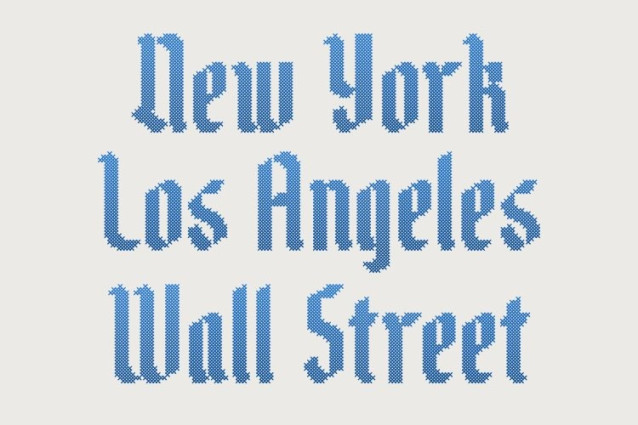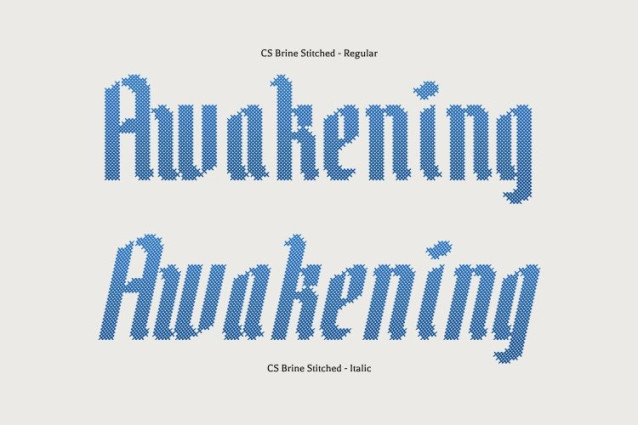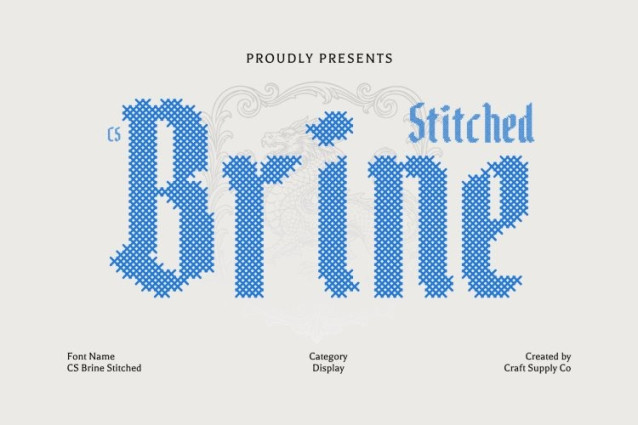
CS Brine Stitched Font
CS Brine Stitched Font is a striking blackletter display font that captures the richness and artistry of traditional gothic typography. Its bold, angular letterforms are filled with intricate details that echo the elegance of medieval manuscripts and classic calligraphy. Enhanced with a stitched texture inspired by thread sewn or embroidered on fabric, this version adds a distinctive handcrafted dimension that deepens the historical and decorative character of the font.
Classic Drama with Textured Stitch Detail
The dramatic presence of this font comes from its sharp strokes, bold structure, and ornate forms. The stitched overlay introduces subtle cross-thread patterns that create an embossed fabric-like effect across each character. This texture adds visual depth while bringing a gentle sense of craftsmanship, warmth, and vintage authenticity that complements the dramatic blackletter style.
Historic Aesthetic with Artistic Craftsmanship
Combining gothic tradition with decorative stitched accents, this font evokes the beauty of historical lettering while adding a tactile artistic quality. The contrast between strong medieval forms and the delicate stitched texture produces a visually rich typographic experience that feels both classic and handcrafted.
Versatile for Elegant and Vintage Design
This is perfect for projects that celebrate heritage and visual drama, including formal invitations, vintage posters, branding with historical themes, packaging, and editorial design. Its blend of bold blackletter elegance and stitched craftsmanship creates a memorable typographic style that conveys tradition, artistry.